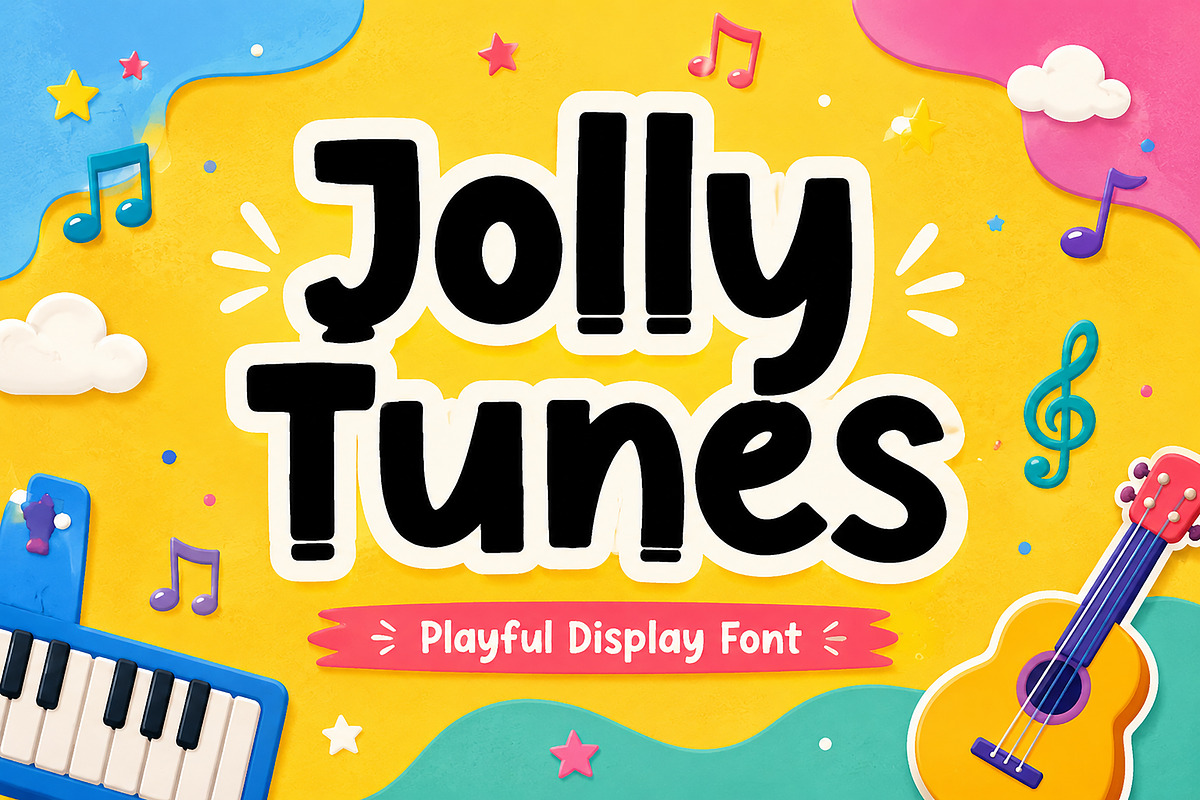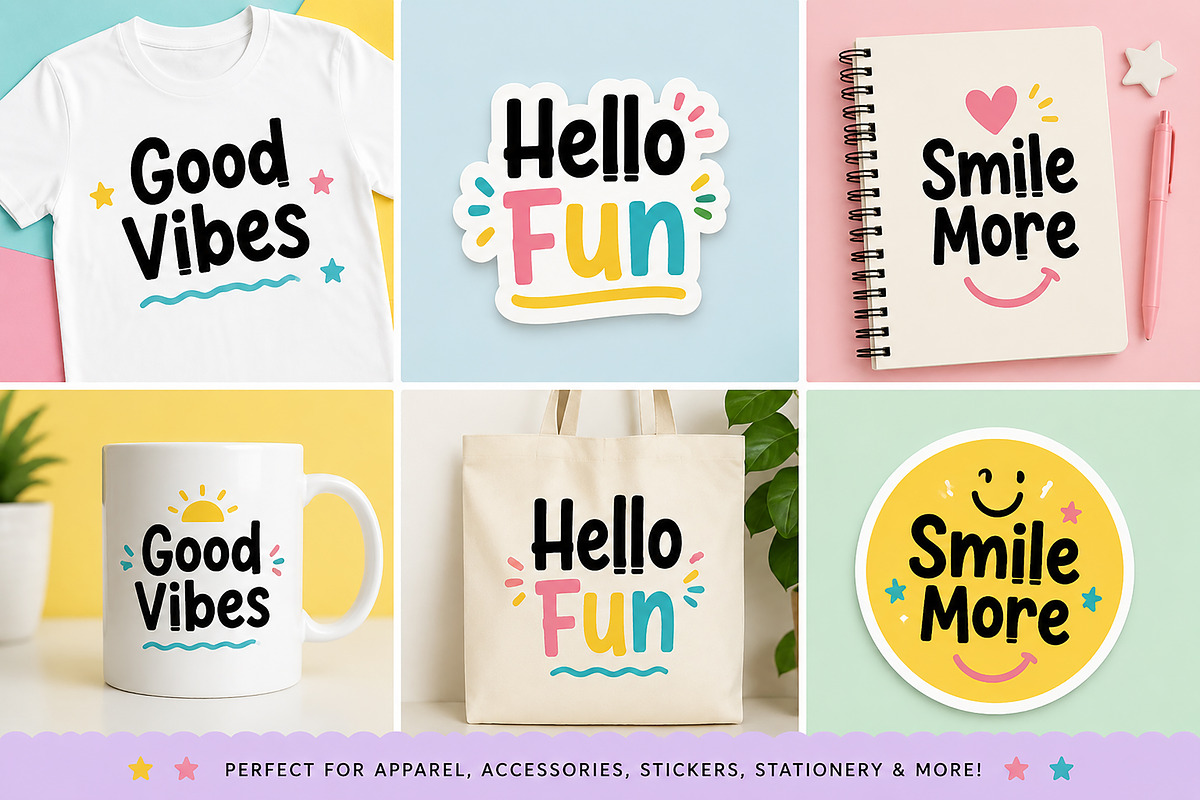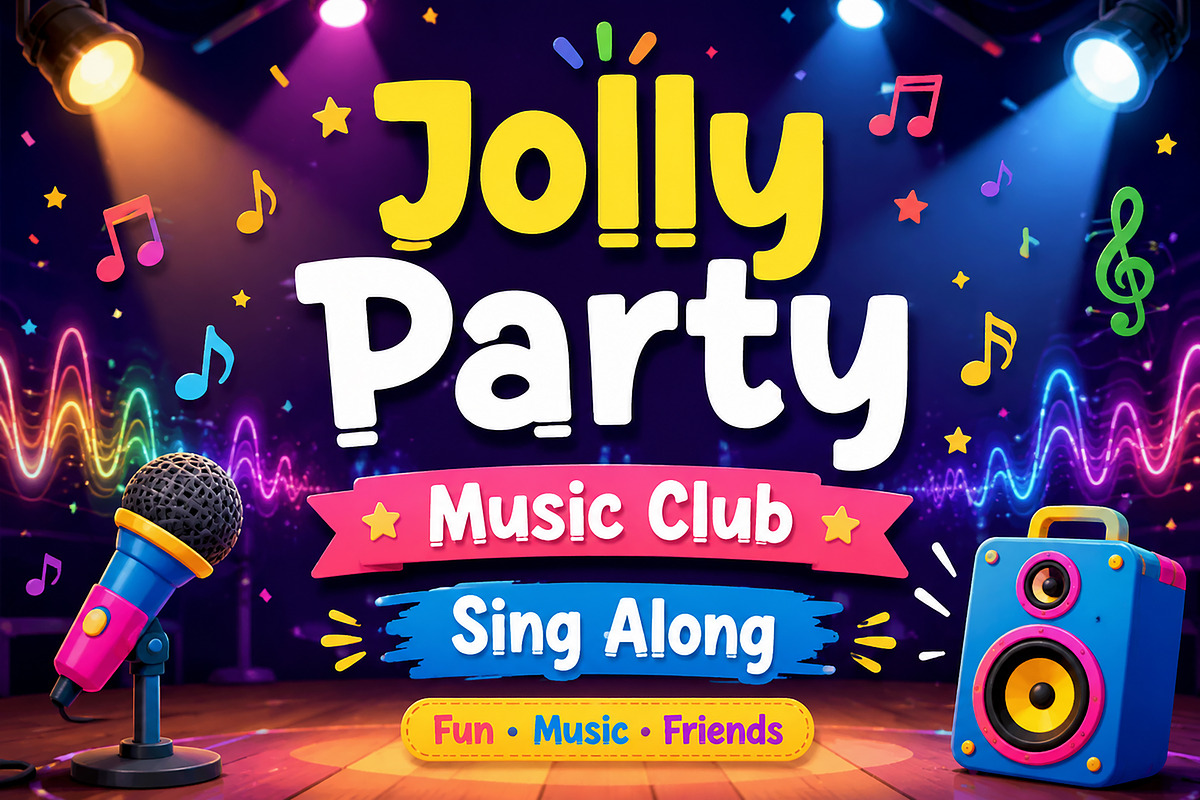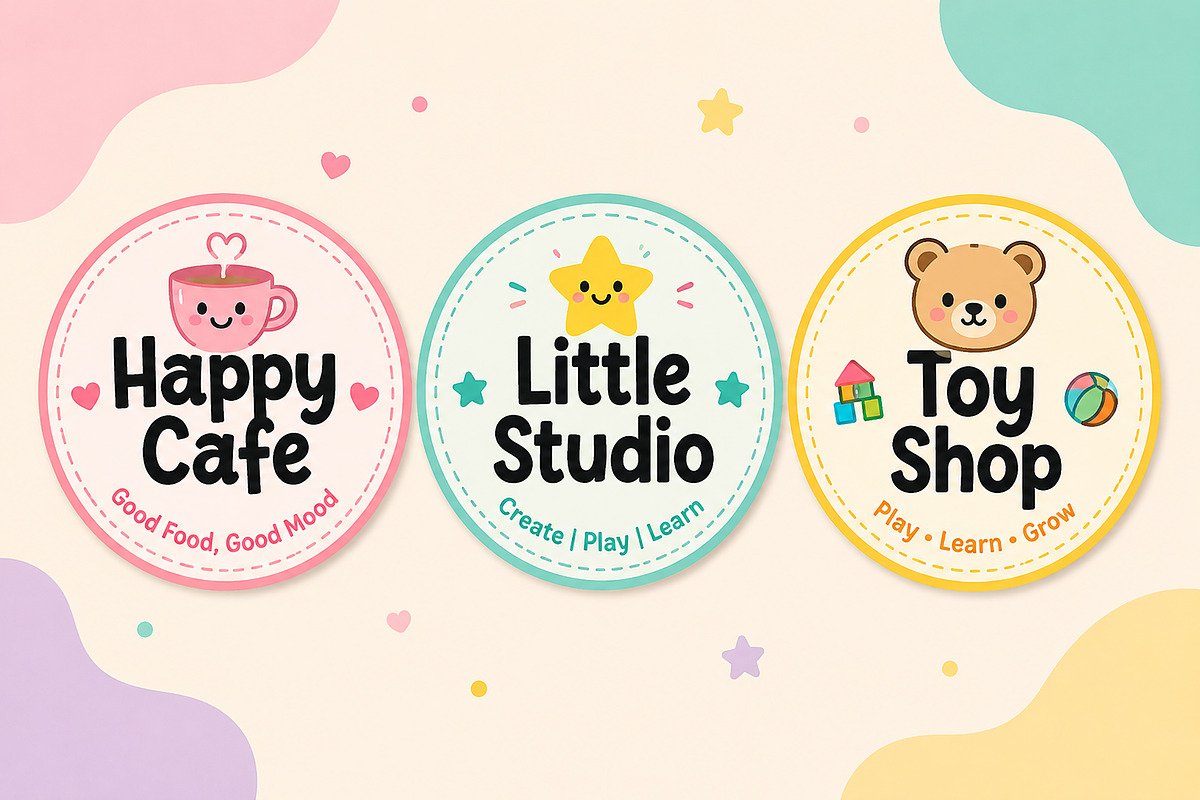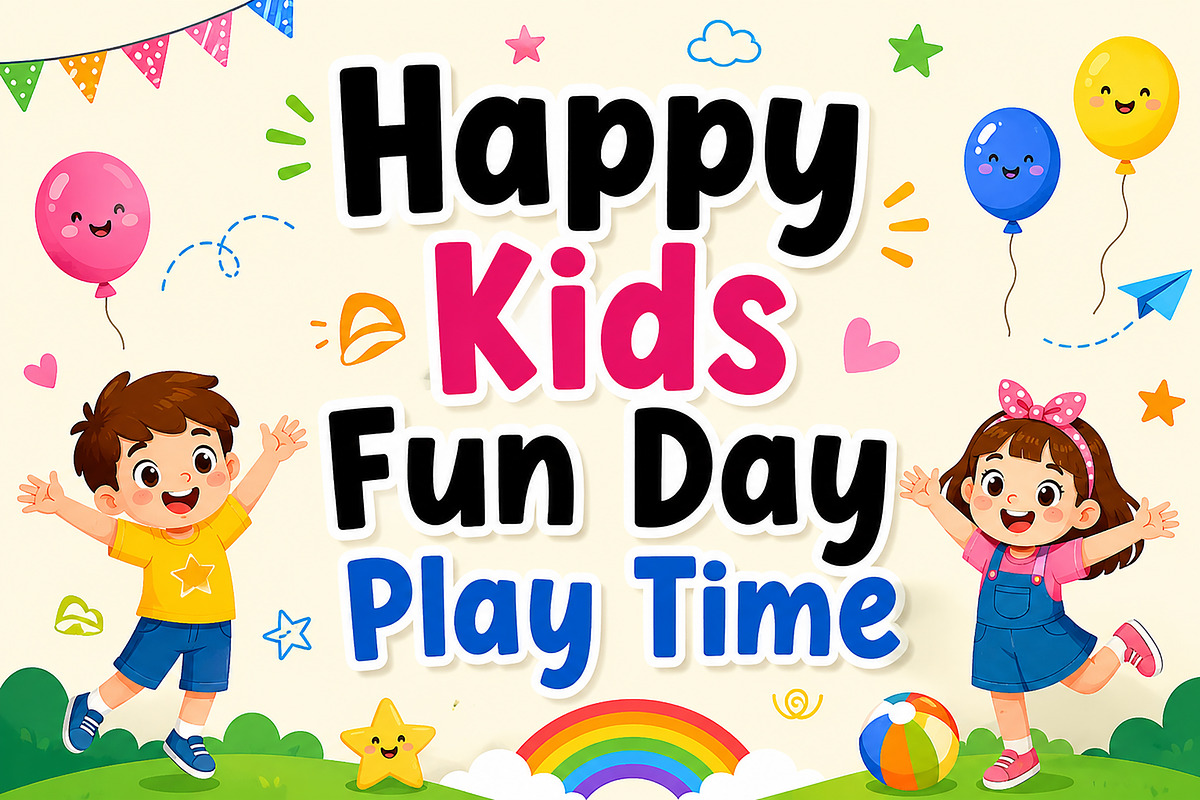
Jolly Tunes
Jolly Tunes – Playful Display Font
Description
Introducing Jolly Tunes, a fun and cheerful display font designed to bring happiness, creativity, and playful energy to your projects. With its bold rounded shapes, friendly personality, and hand-crafted charm, this font is perfect for designs that need a joyful and approachable look.
Whether you're creating children's books, classroom materials, birthday invitations, toy packaging, stickers, Cricut projects, YouTube thumbnails, playful branding, or social media graphics, Jolly Tunes adds an instant touch of fun and excitement.
Its cute and bold letterforms make it highly readable while maintaining a unique character that stands out in both print and digital designs.
Kids Branding
Children's Books
School Projects
Birthday Invitations
Toy Packaging
Stickers & Crafts
Cricut & Silhouette Projects
T-Shirts & Merchandise
YouTube Thumbnails
Social Media Posts
Greeting Cards
Posters & Flyers
Fun Logos
Baby Products
Educational Materials
High Readability
Fun & Friendly Style
Bring smiles to your designs with Jolly Tunes — the playful font that makes every project feel bright, happy, and full of personality!